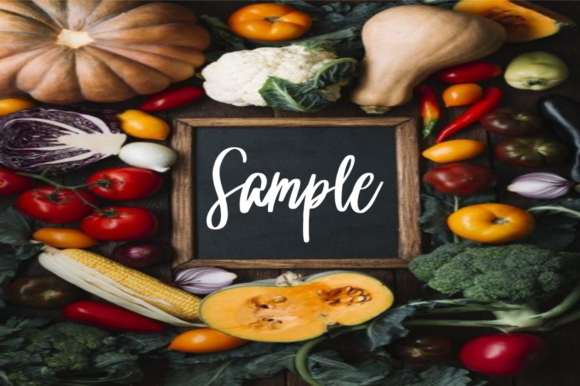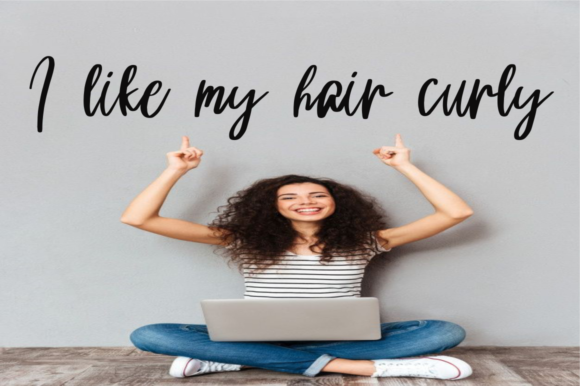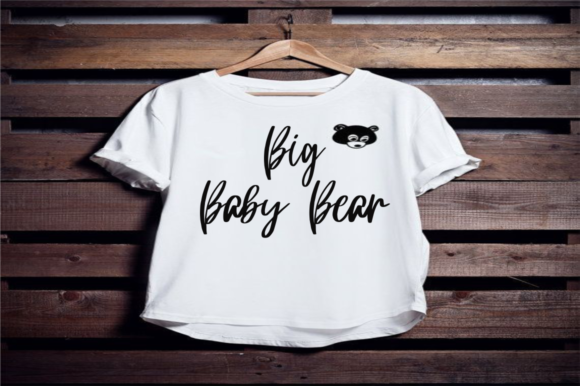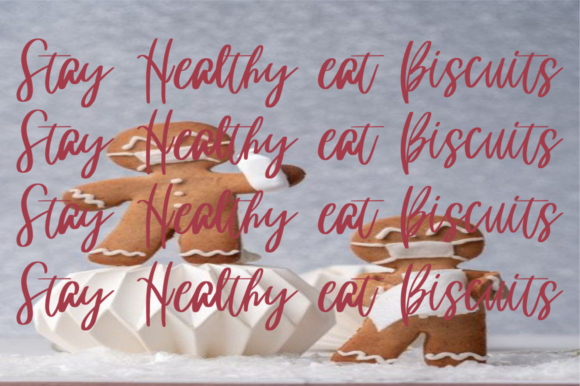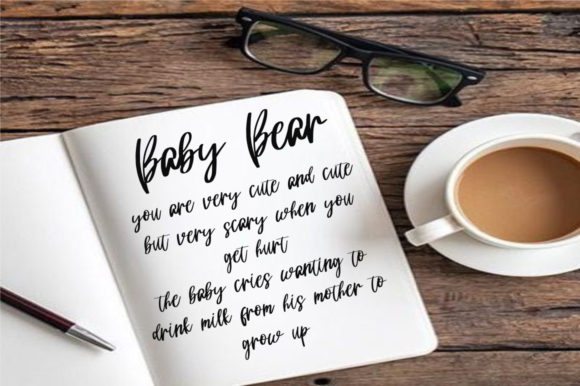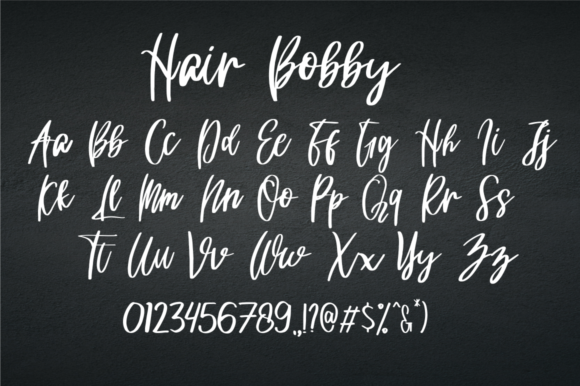
Introducing Hair Bobby Sweet Font: The Perfect Addition to Your Design Arsenal
Are you tired of using the same old fonts in your designs? Do you want to add a touch of happiness and playfulness to your creations? Look no further than the Hair Bobby Sweet font! This beautiful, flowing script handwritten font is sure to brighten up your designs and leave a lasting impression on your audience.
What is Hair Bobby Sweet Font?
Hair Bobby Sweet is a unique and charming font that exudes a happy and cheerful vibe. Its simple, yet lively style makes it an excellent choice for designers and crafters looking to add some personality to their work. Whether you’re creating a logo, branding materials, or social media graphics, this font is sure to make your designs stand out.
Key Features of Hair Bobby Sweet Font
- Flowing Script Style: Hair Bobby Sweet features a beautiful, flowing script style that’s perfect for creating elegant and sophisticated designs.
- Handwritten Charm: The font’s handwritten charm adds a personal touch to your designs, making them more relatable and engaging.
- Happy and Cheerful Vibe: The font’s happy and cheerful vibe is sure to evoke positive emotions and make your designs more enjoyable to look at.
- Simple and Full of Life: The font’s simple, yet lively style makes it easy to read and understand, while also adding a touch of playfulness to your designs.
Why Choose Hair Bobby Sweet Font?
So, why should you choose Hair Bobby Sweet font for your designs? Here are just a few reasons:
- Versatility: Hair Bobby Sweet font is versatile and can be used in a variety of design projects, from logos and branding materials to social media graphics and more.
- Easy to Read: The font is easy to read, even at small sizes, making it perfect for use in body text or captions.
- Unique and Memorable: The font’s unique and memorable style will help your designs stand out and leave a lasting impression on your audience.
- Perfect for Crafters and Designers: Hair Bobby Sweet font is perfect for crafters and designers who want to add a personal touch to their work.
How to Use Hair Bobby Sweet Font in Your Designs
Using Hair Bobby Sweet font in your designs is easy! Here are a few tips to get you started:
- Pair it with Other Fonts: Pair Hair Bobby Sweet font with other fonts to create a unique and interesting contrast.
- Use it for Headings and Titles: Use the font for headings and titles to add a touch of elegance and sophistication to your designs.
- Add it to Your Branding Materials: Add Hair Bobby Sweet font to your branding materials, such as logos and business cards, to create a consistent and recognizable brand identity.
- Experiment with Colors and Textures: Experiment with different colors and textures to add depth and interest to your designs.
In conclusion, Hair Bobby Sweet font is a beautiful and versatile font that’s perfect for designers and crafters looking to add a touch of happiness and playfulness to their designs. Its flowing script style, handwritten charm, and happy and cheerful vibe make it an excellent choice for a variety of design projects. So why not give it a try and see how it can elevate your designs to the next level?
Whether you’re a seasoned designer or just starting out, Hair Bobby Sweet font is a great addition to your design arsenal. With its ease of use, versatility, and unique style, it’s sure to become a favorite font in your collection.